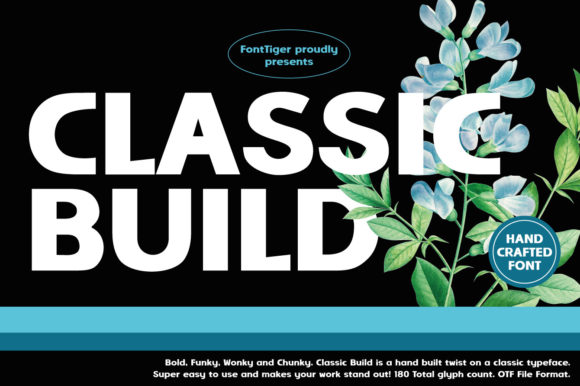
Introducing the Classic Build Font - A Masterpiece of Boldness and Clarity for Your Creative Endeavors!
Step into the world of typography with Classic Build Font, a display font that commands attention and leaves a lasting impression. Its thick, assertive letters exude a sense of confidence and strength, making it the perfect choice for projects that demand impact and memorability.
Whether you're a seasoned designer or just starting your creative journey, Classic Build Font will elevate your designs to new heights. Its versatility knows no bounds, lending itself effortlessly to blog posts, logos, branding, advertisements, invitations, greeting cards, planners, photo albums, and a myriad of other projects.
Dive into the depths of its versatility and unleash your creativity. Let Classic Build Font be your muse as you craft captivating logos that leave a lasting impression, design eye-catching advertisements that demand attention, or create stunning invitations and greeting cards that convey your heartfelt sentiments in a truly unique way.
With Classic Build Font, the possibilities are endless. Embrace its bold presence and watch your designs take center stage. Make a statement, leave your mark, and let your creativity shine through.